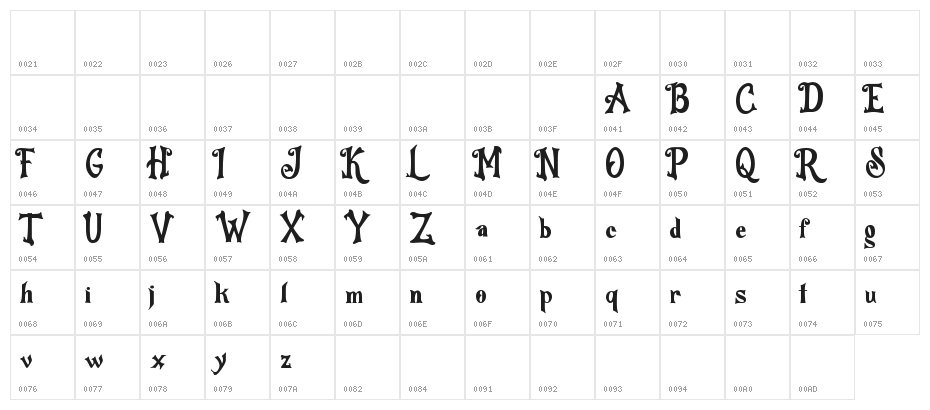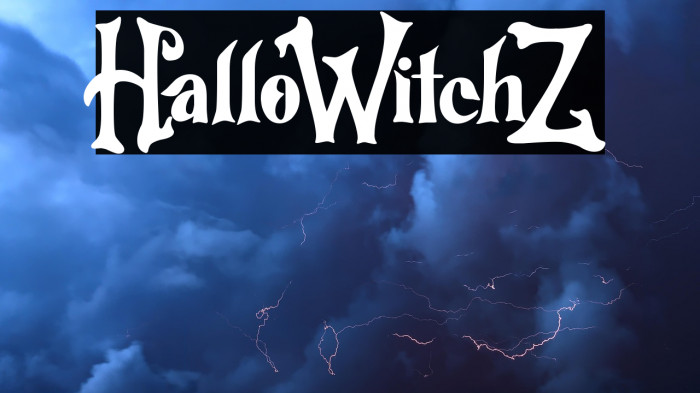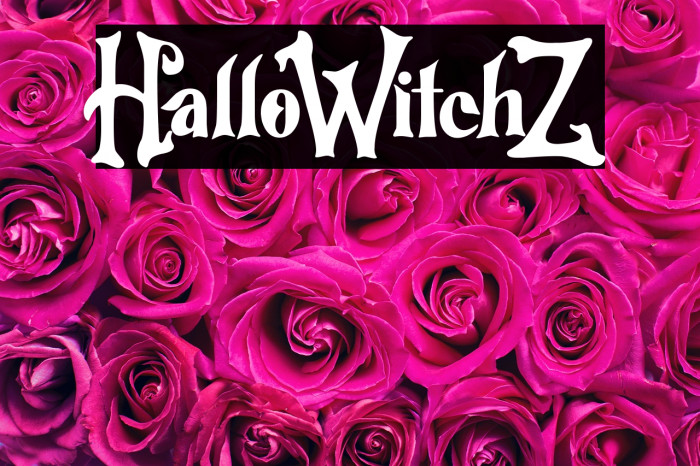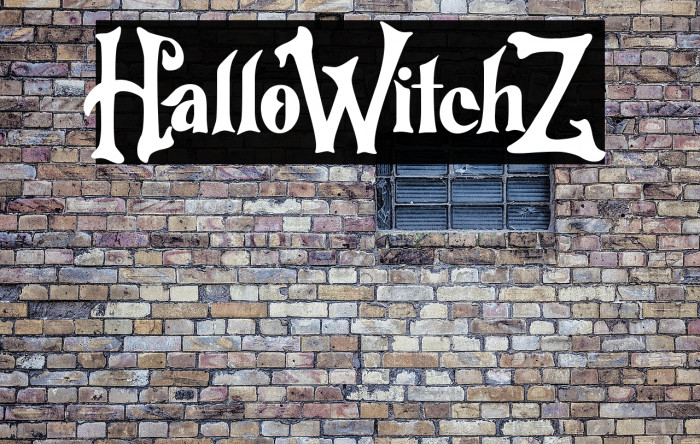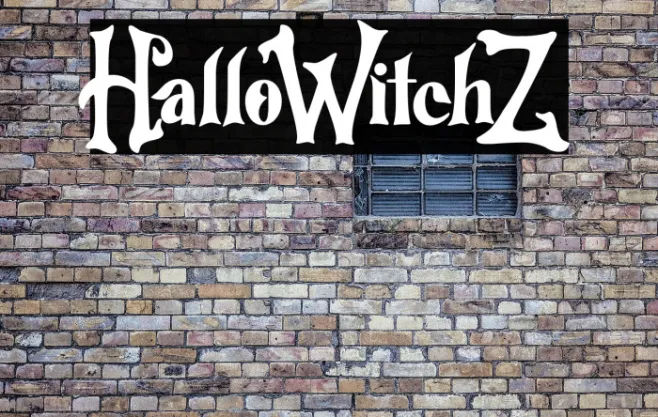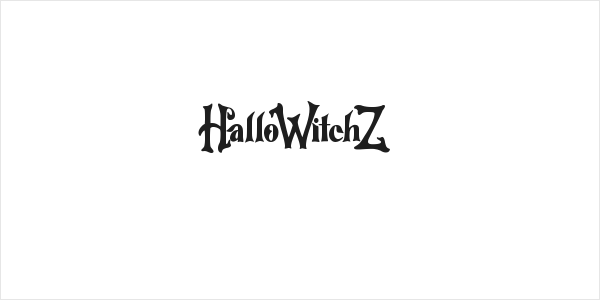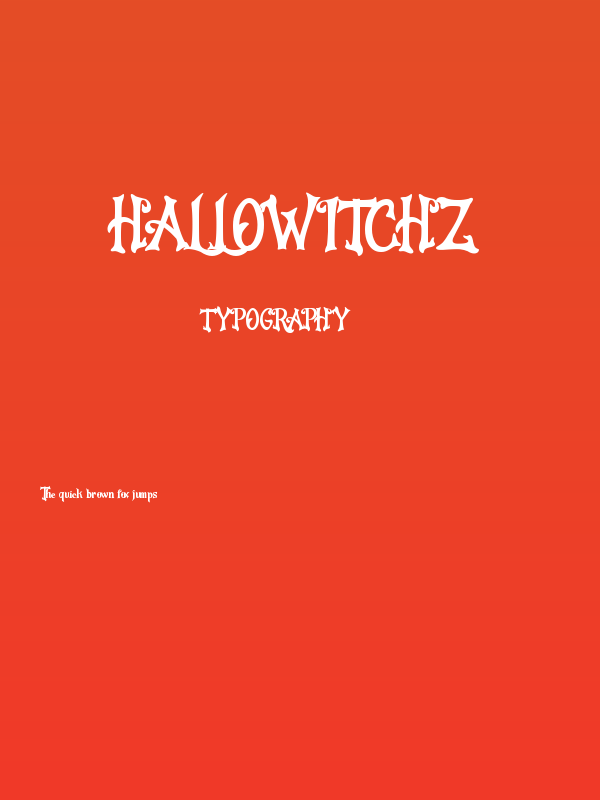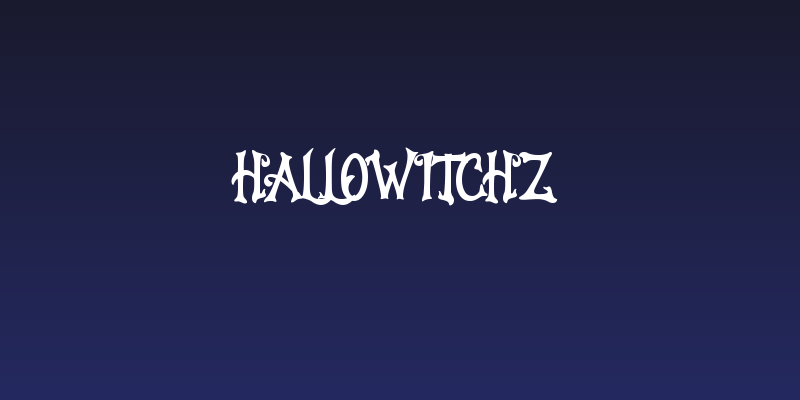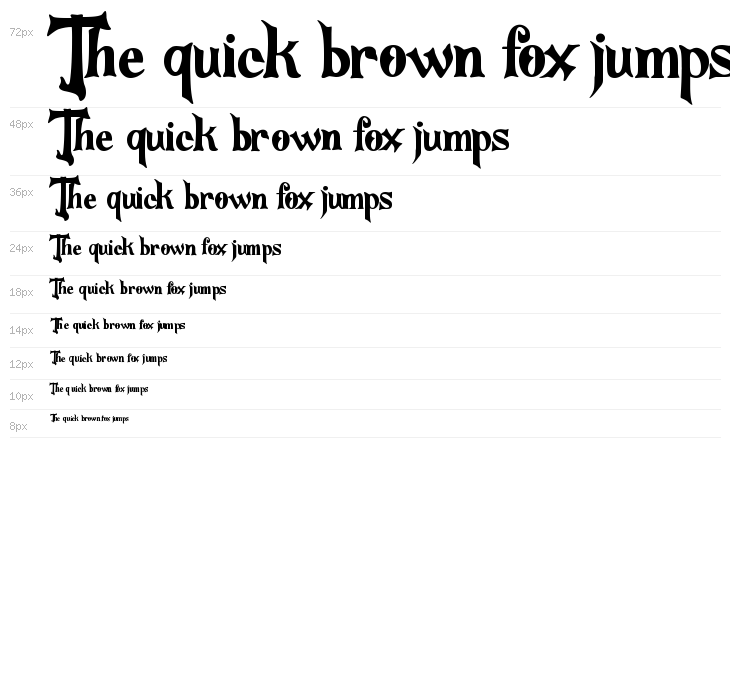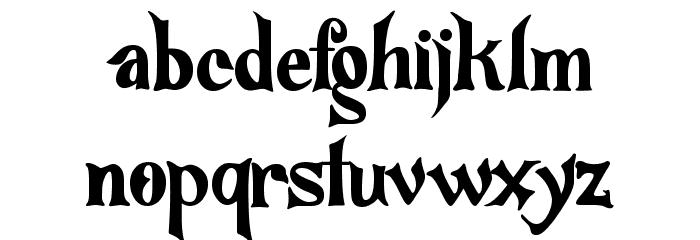
HalloWitchZ Font
HalloWitchZ Description
This font features a whimsical and playful design, characterized by its bold and decorative style. The letters have a unique, slightly gothic flair with exaggerated serifs and curves that give it a magical and enchanting appearance. The uppercase letters are particularly ornate, with intricate details that make them stand out. The lowercase letters maintain the same decorative style but are slightly more subdued, providing a nice balance. The numbers and special characters follow the same design principles, ensuring consistency throughout the font. This font is perfect for projects that require a touch of fantasy or a Halloween theme.